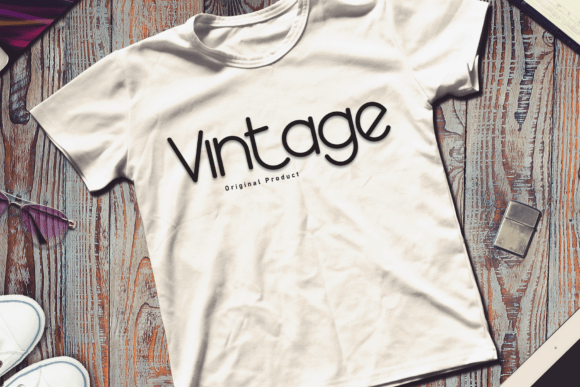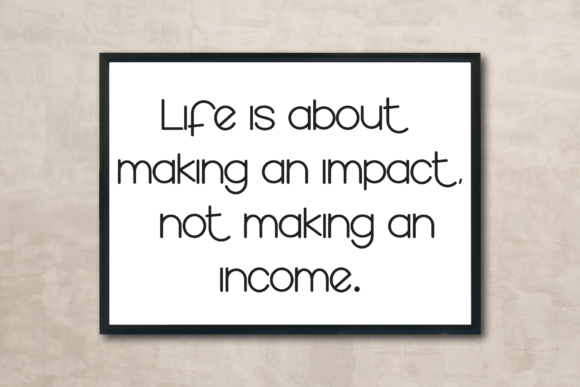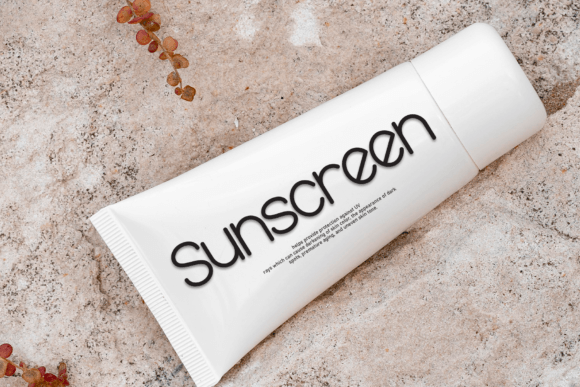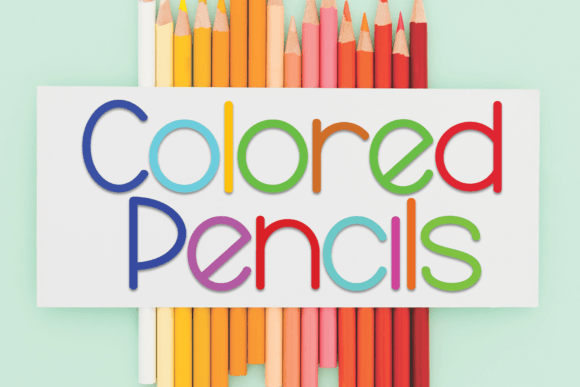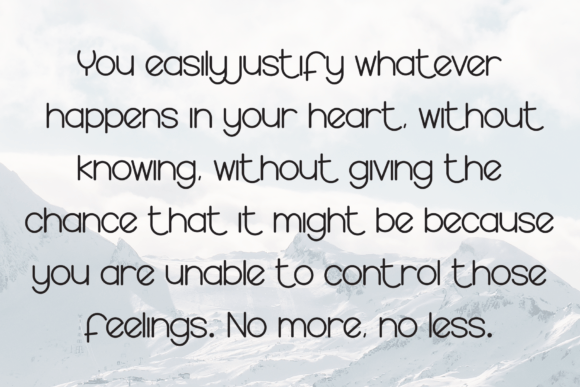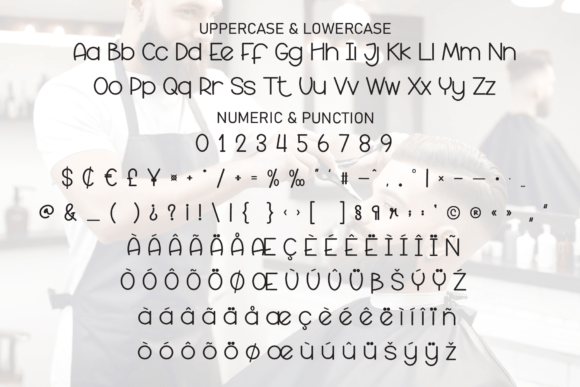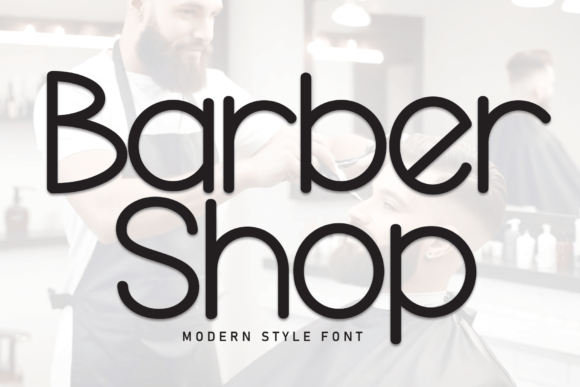
Introducing Barber Shop Font: A Charming Handwritten Display Font
Are you looking for a font that can add a touch of whimsy and joy to your design projects? Look no further than the Barber Shop Font, a charming and friendly handwritten display font that effortlessly blends sweetness with vibrancy. This delightful font is perfect for inscribing heartwarming wedding invitations, quirky cards, or any design project that calls for a dash of playfulness and creativity.
A Font Packed with Personality
The Barber Shop Font is designed to bring fun to every text, making your design come alive in an adorably playful manner. With its aesthetically pleasing balance of delicate elegance and vivacious creativity, this font is sure to make every word enchantingly unforgettable. Whether you’re a designer, crafter, or DIY enthusiast, this font is perfect for adding a personal touch to your projects.
The Barber Shop Font is versatile and can be used for a wide range of design projects, including:
- Quirky cards and postcards
- DIY crafts and scrapbooking
What Sets Barber Shop Font Apart
So, what makes the Barber Shop Font so special? Here are just a few features that set it apart:
- Handwritten charm: This font is carefully crafted to mimic the look and feel of handwritten text, giving your designs a personal and unique touch.
- Vibrant and playful: The Barber Shop Font is designed to add a dash of whimsy and joy to your designs, making it perfect for projects that require a playful touch.
- Elegant and refined: Despite its playful nature, this font still maintains an air of elegance and sophistication, making it suitable for a wide range of design projects.
- Easy to read: The Barber Shop Font is clear and easy to read, making it perfect for use in both digital and print designs.
Tips for Using Barber Shop Font
To get the most out of the Barber Shop Font, here are a few tips to keep in mind:
- Use it sparingly: While the Barber Shop Font is perfect for adding a touch of whimsy to your designs, it’s best to use it sparingly to avoid overwhelming the viewer.
- Pair it with other fonts: Consider pairing the Barber Shop Font with other fonts to create a unique and visually interesting design.
- Experiment with colors: The Barber Shop Font looks great in a variety of colors, so don’t be afraid to experiment and find the perfect hue for your design.
In conclusion, the Barber Shop Font is a charming and friendly handwritten display font that’s perfect for designers, crafters, and DIY enthusiasts. With its unique blend of sweetness and vibrancy, this font is sure to add a touch of whimsy and joy to your design projects. So why wait? Download the Barber Shop Font today and start creating your own enchantingly unforgettable designs!
- Handwritten display font
- Charming and friendly
- Sweet and vibrant
- Perfect for wedding invitations, quirky cards, and DIY crafts
- Easy to read
- Clear and elegant